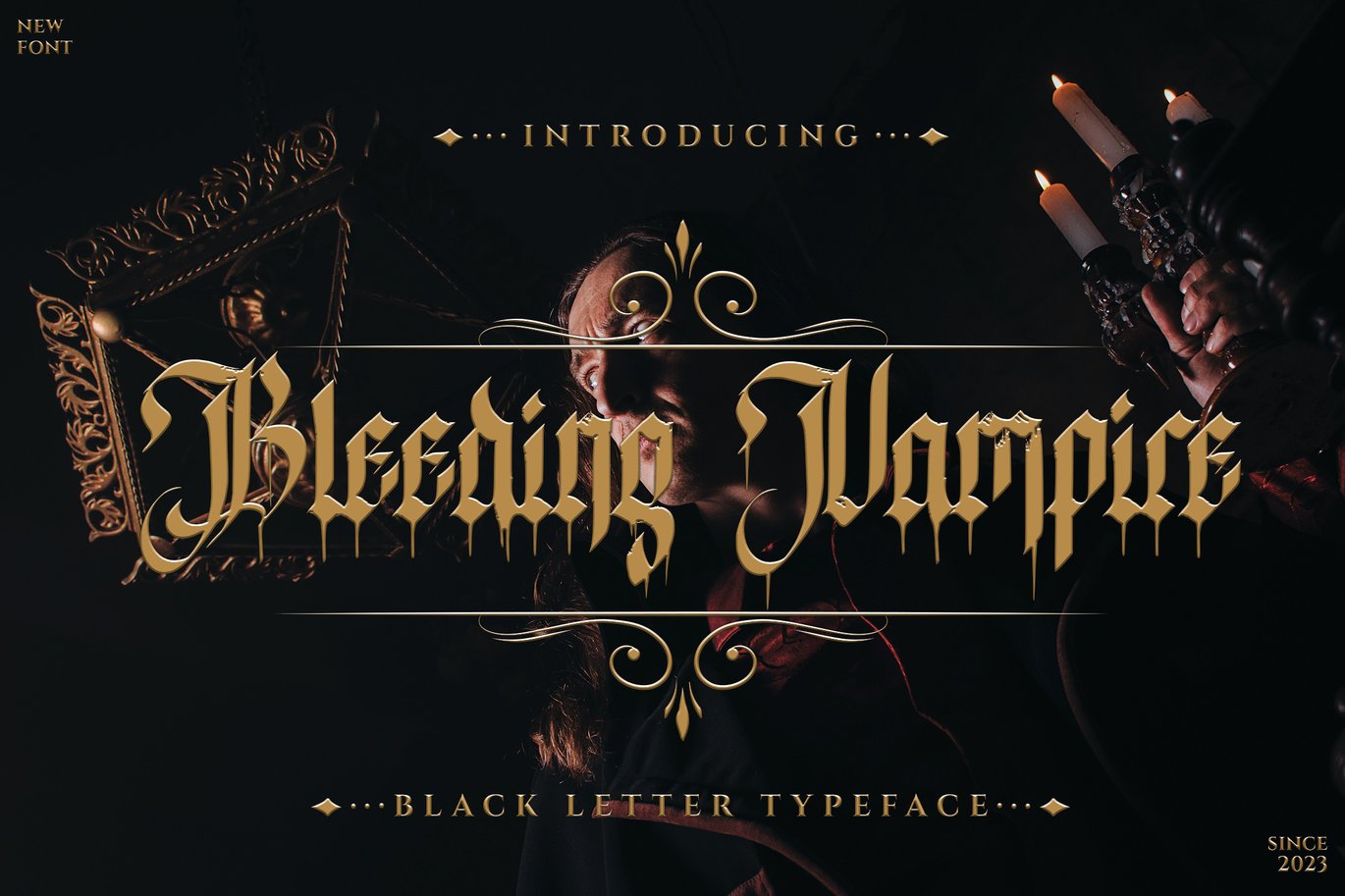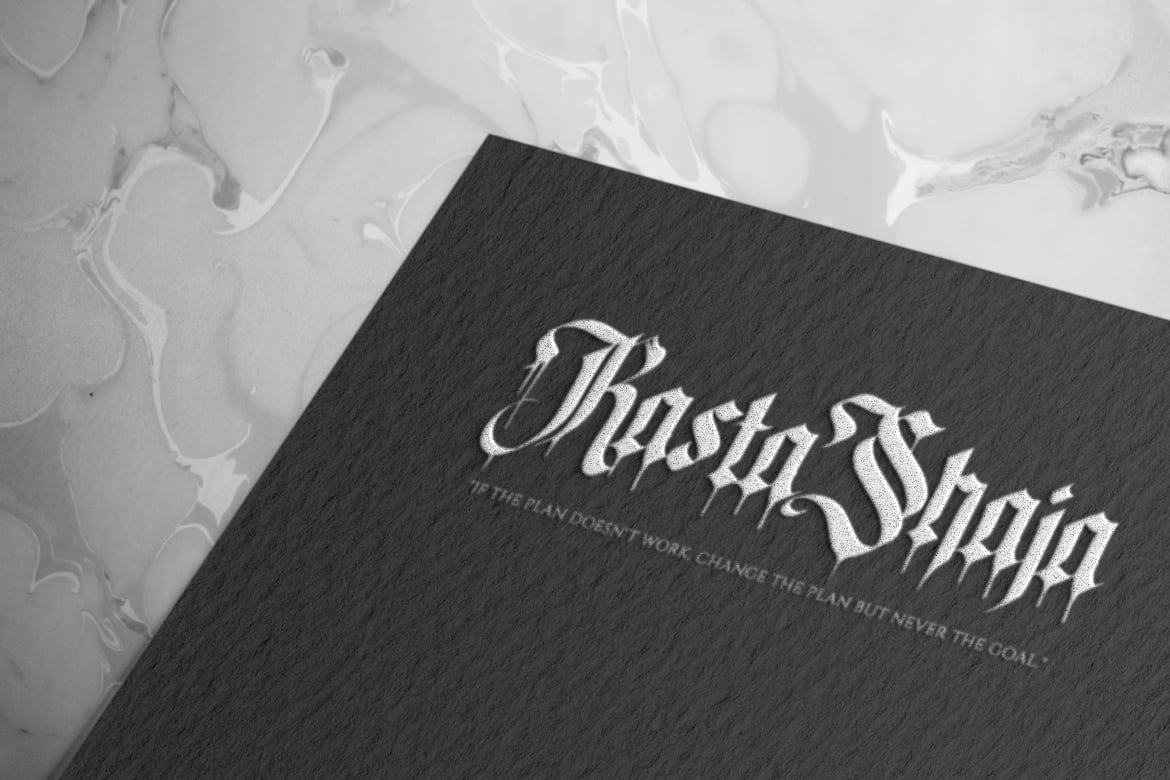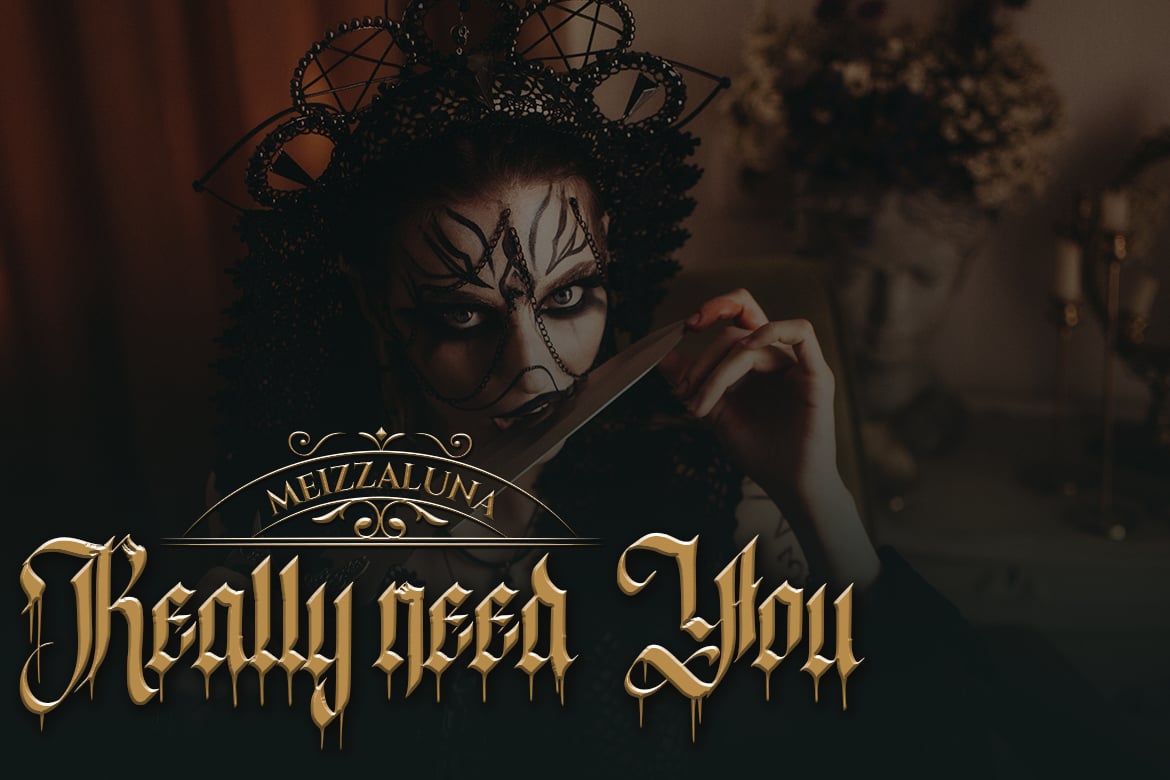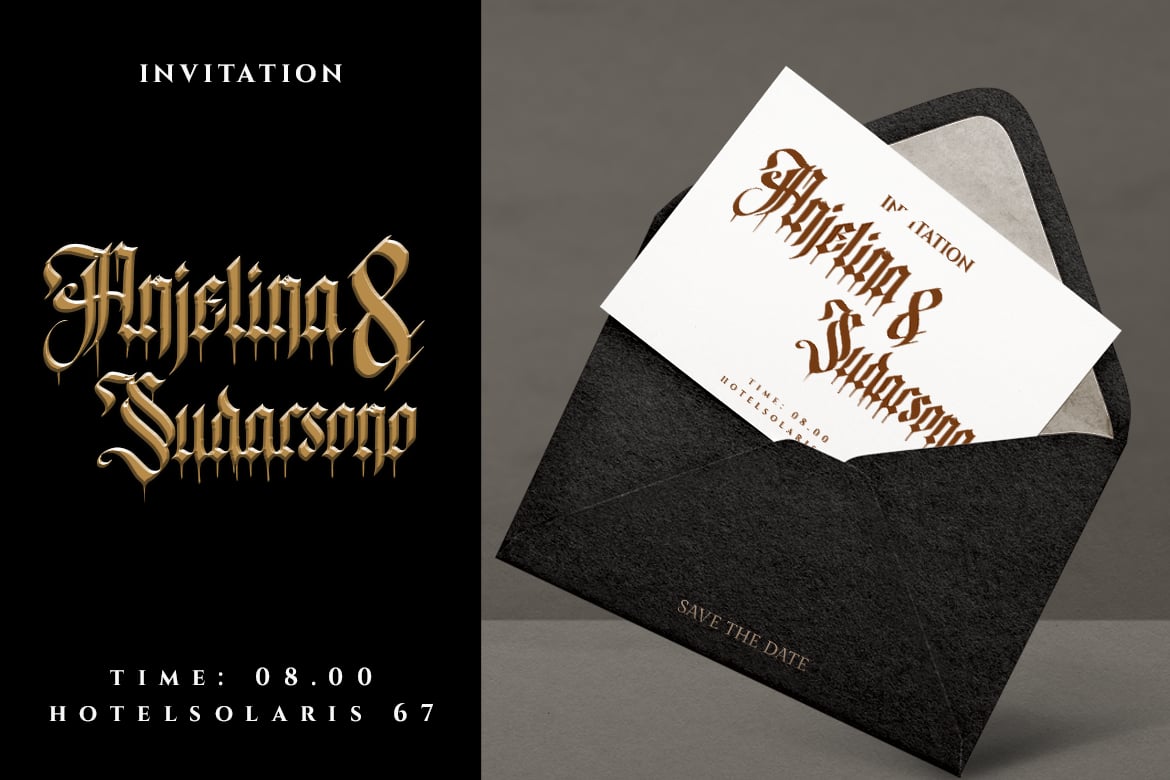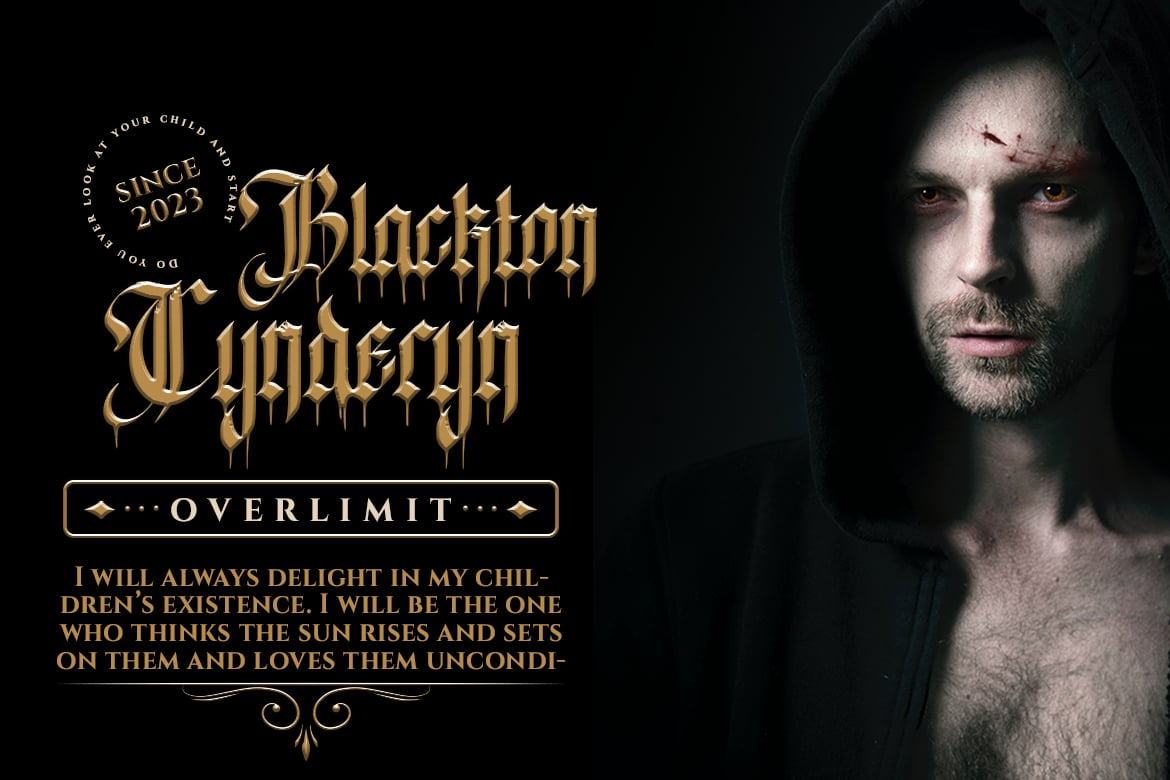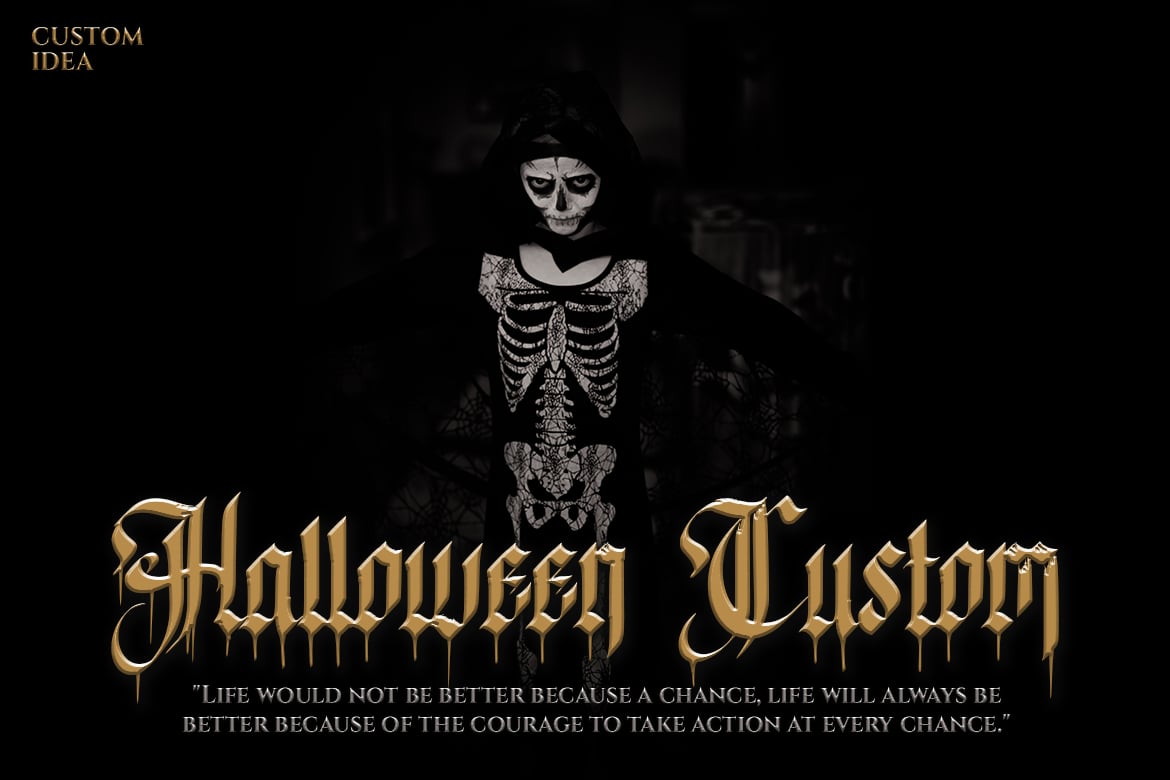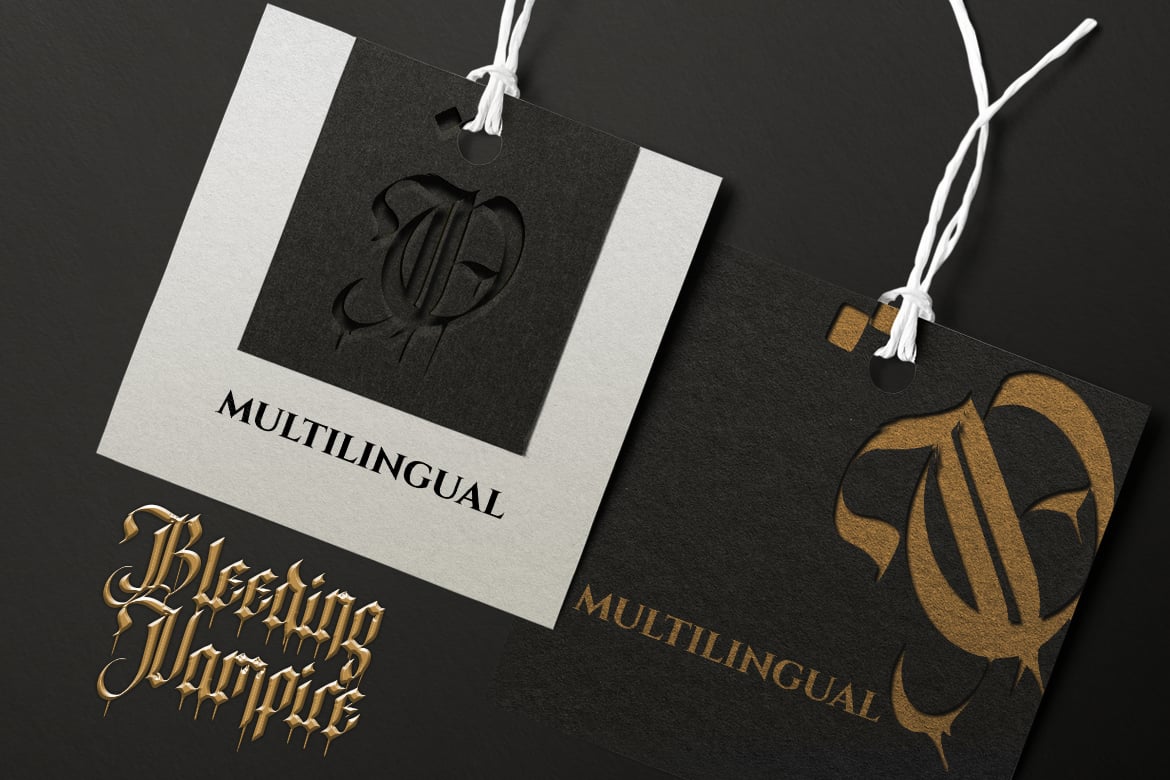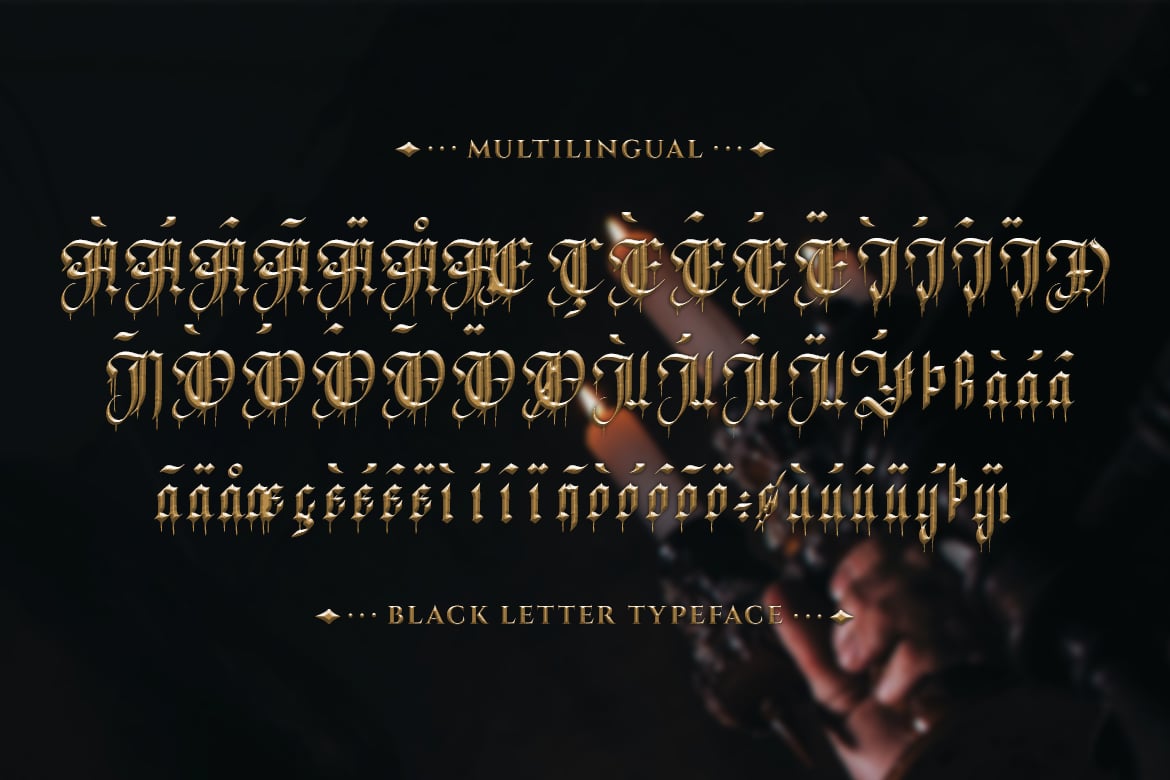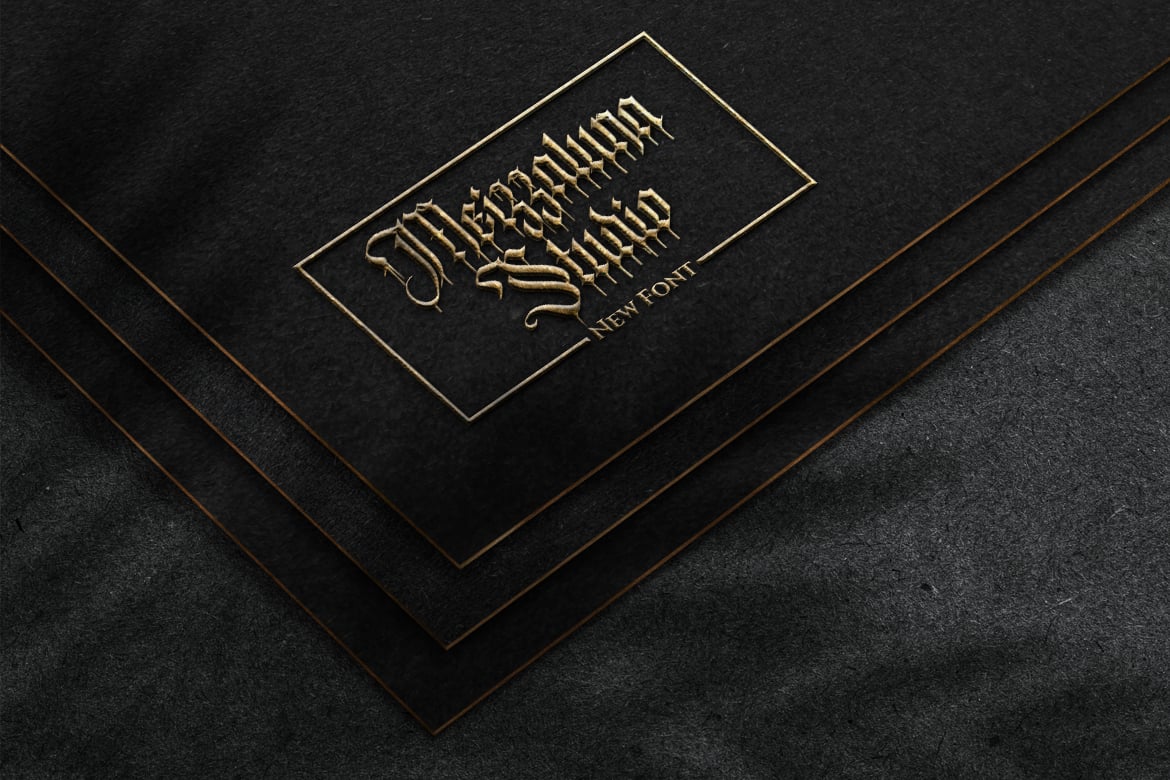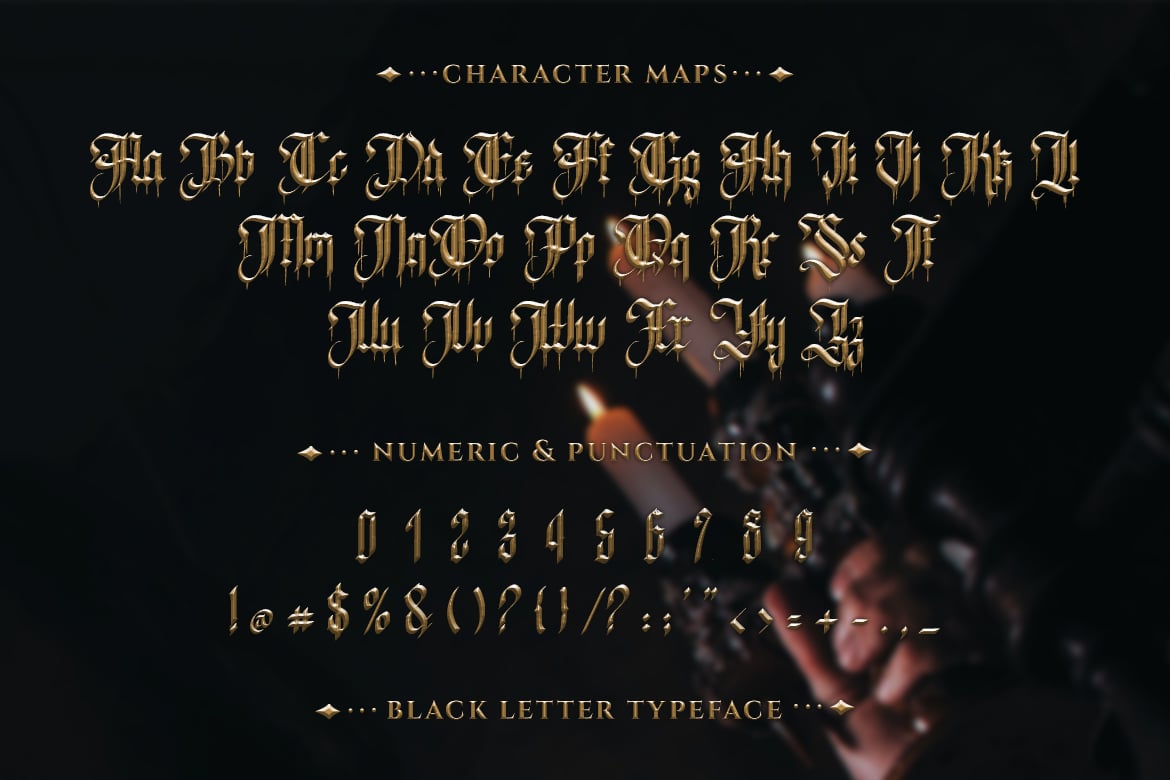
Bleeding Vampire – Blackletter Typeface
Bleeding Vampire is an elegant and classic blackletter font that will impress with its stylish features. Use it for product packaging, branding, or other projects that need bold and daring typography!